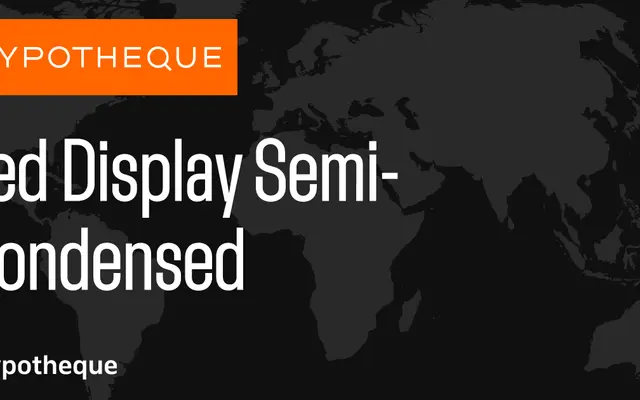
Zed Display Semi-Condensed
One width variant within Typotheque's vast Zed system, a geometric sans spanning nine widths, two optical styles, a text subfamily and a variable font.
Zed Display Semi-Condensed sits midway through a nine-width display range that runs from Extra-Compressed to Extra-Wide, each available in nine weights from Hairline to Black with upright, slanted and backslanted cuts. The wider system also includes a Round subfamily sharing the same width and weight structure, a Text subfamily for smaller sizes, and a variable font covering the full range. Individual styles are named after world cities, lending the system an unusual navigational logic across its dozens of purchasable cuts.
Zed is a geometric sans-serif display system with multiple width variants from extra-compressed to extra-wide; the Display subfamily is explicitly positioned for large-scale use, placing it firmly in the display category.